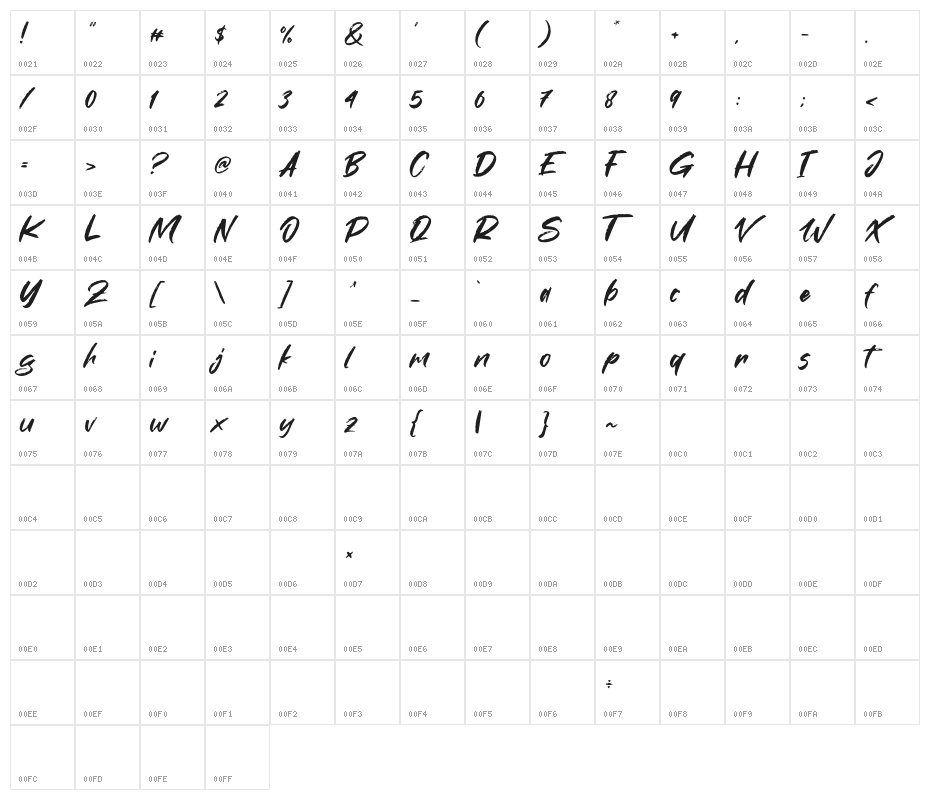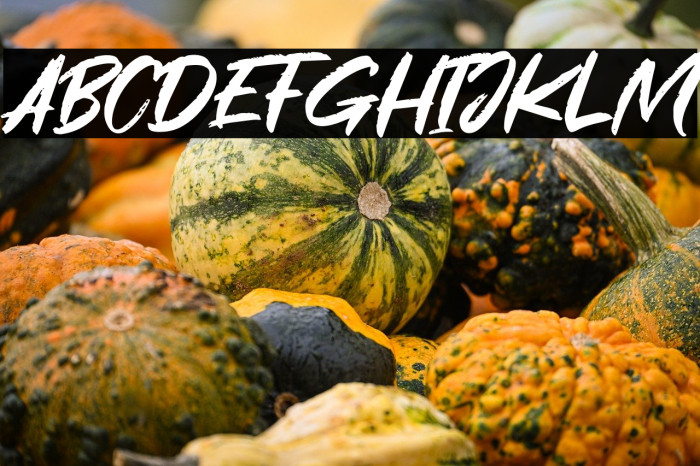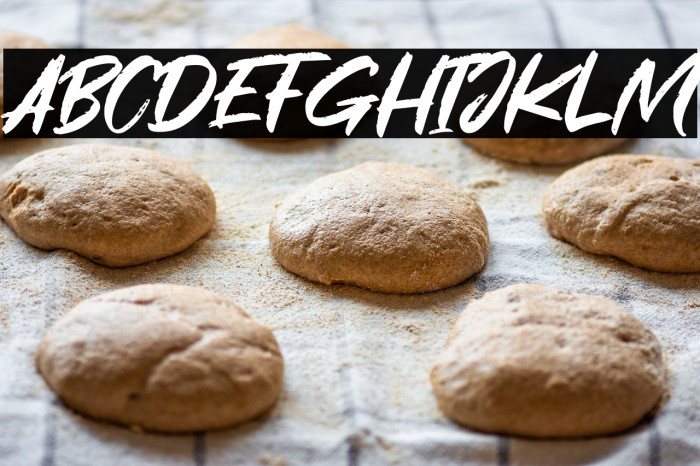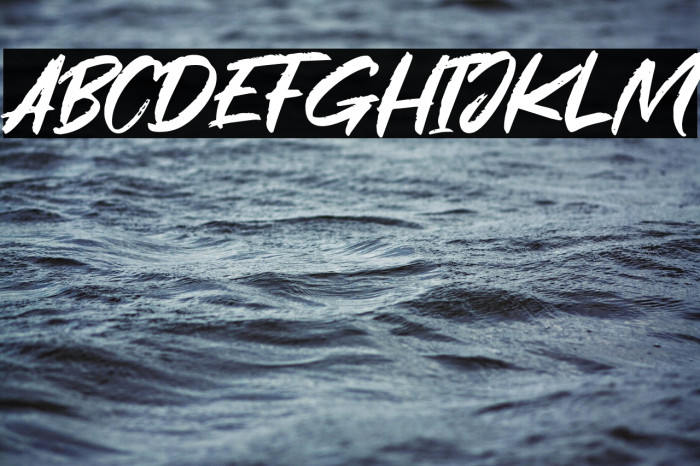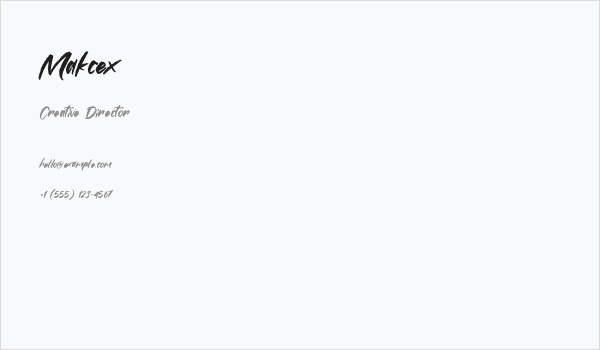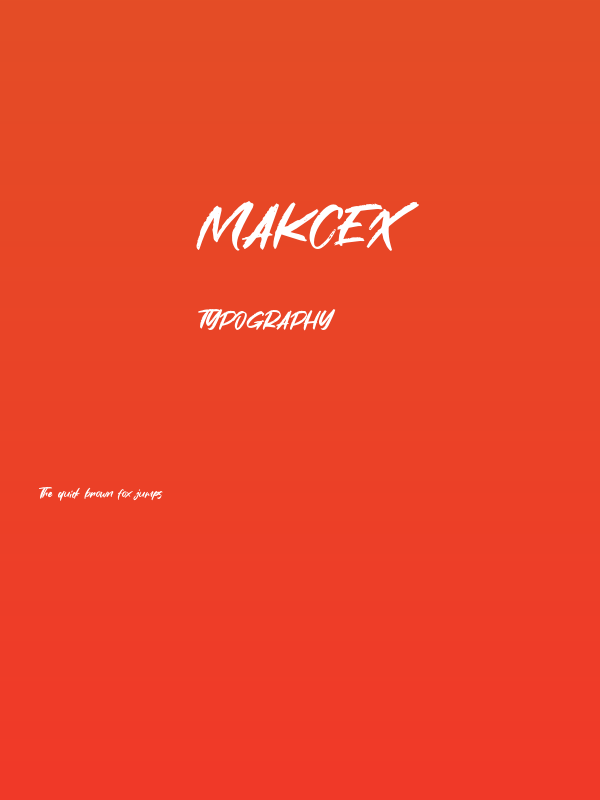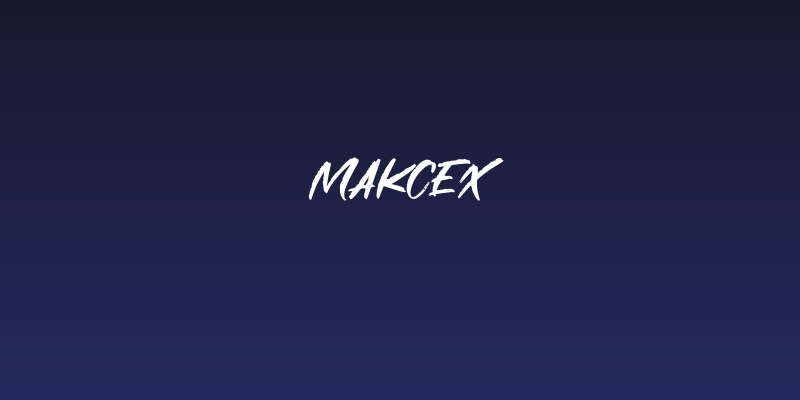
Makcex Font
Makcex Description
This font exhibits a bold and dynamic brush script style, characterized by its energetic and fluid strokes. The letters have a hand-painted appearance, with varying thickness that adds a sense of movement and spontaneity. The uppercase and lowercase letters are well-balanced, maintaining a consistent flow throughout. The numerals and special characters complement the alphabet with similar brush-like qualities, enhancing the overall cohesive look. This font's expressive nature makes it ideal for creative and artistic projects, where a personal and informal touch is desired.
| Proposed Projects | Ideal for branding, posters, invitations, and artistic projects requiring a personal touch. |